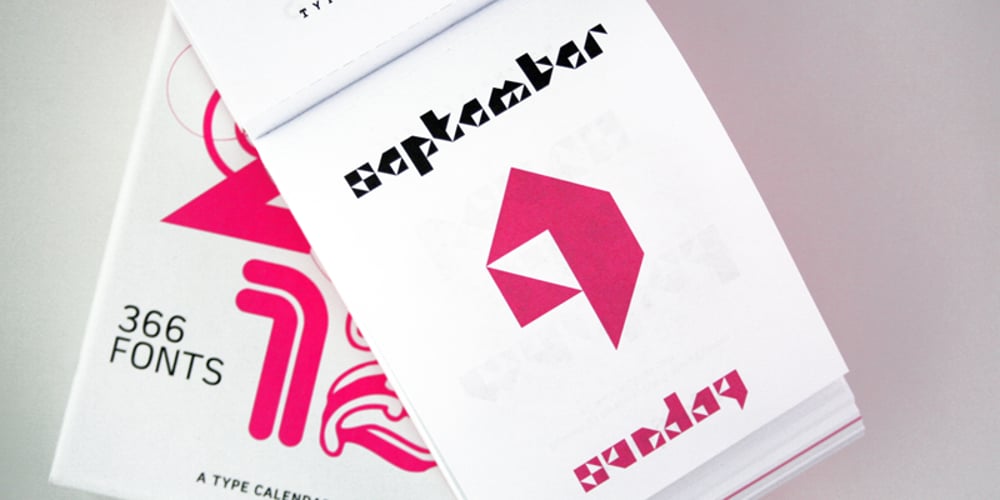
Tranglego Font Family was designed by published by Mary Egorova. Tranglego contains 1 styles and family package options. Tranglego is a display module font made of triangles. It is a student project in Tagir Safayev’s workshop, Higher Academic School of Graphic design in Moscow